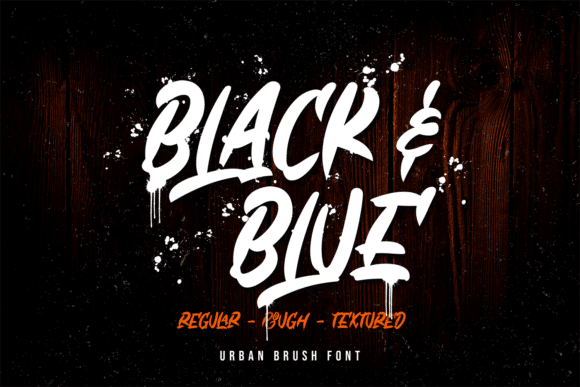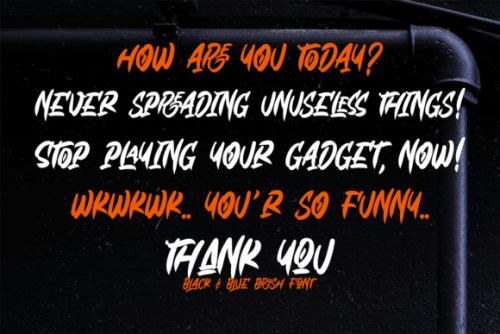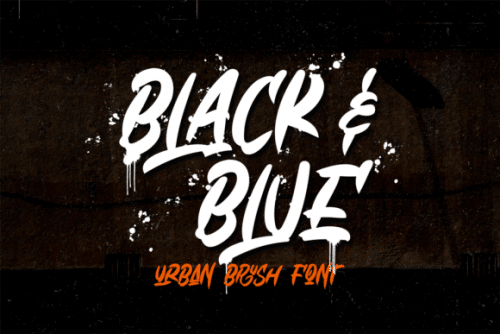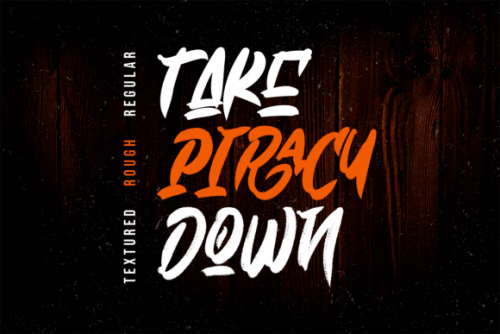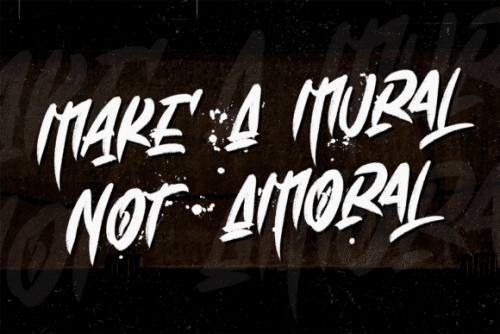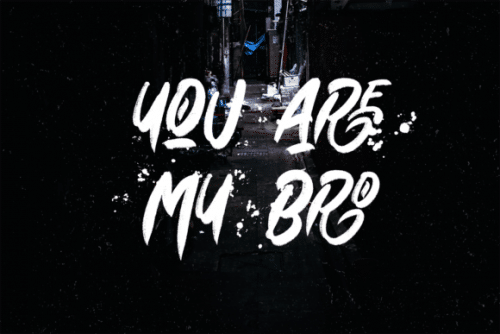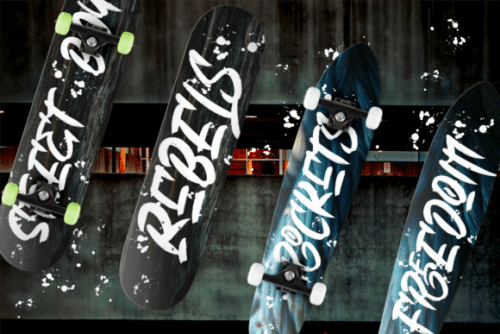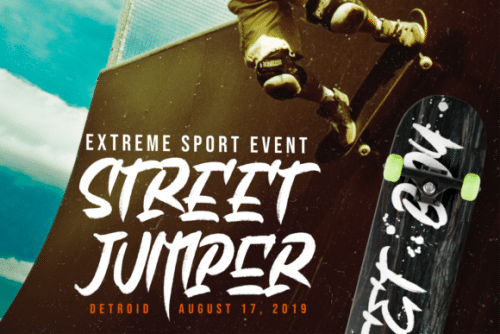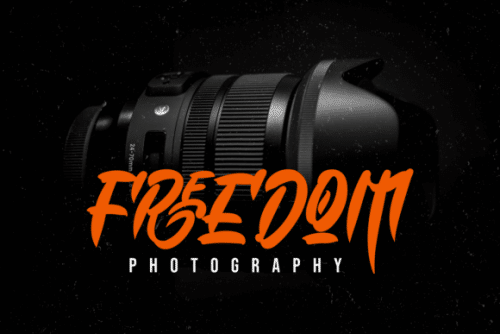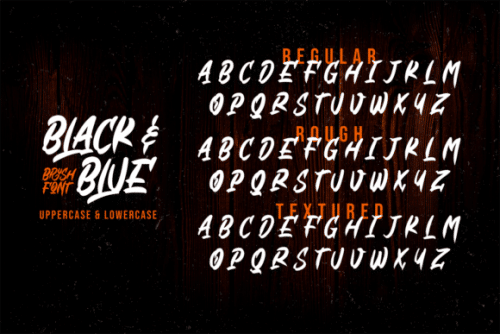
Black & Blue is a brush font with 3 styles, regular (clean), rough, and textured. Black & Blue font is ideal for logos, apparel, T-shirt, Hoodie, quotes, product packaging, or anything which needs a typographic turbo-boost.
- Designer: Omotu